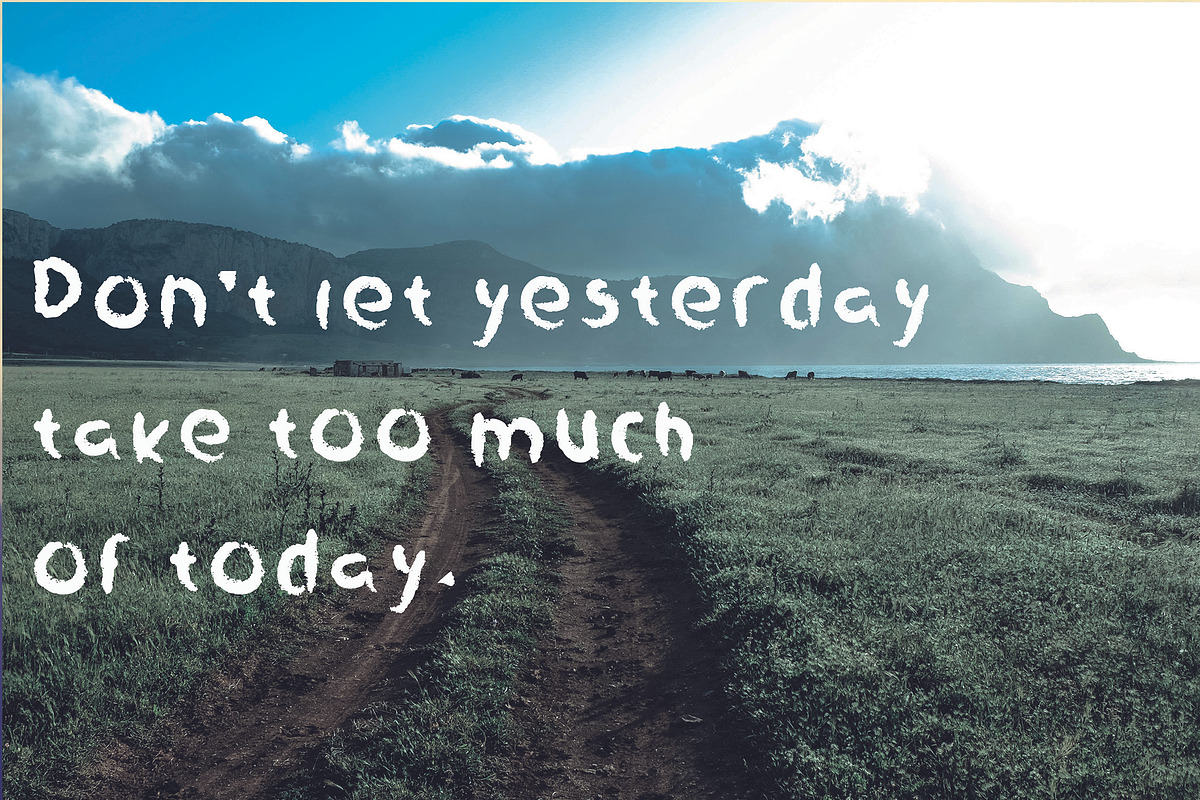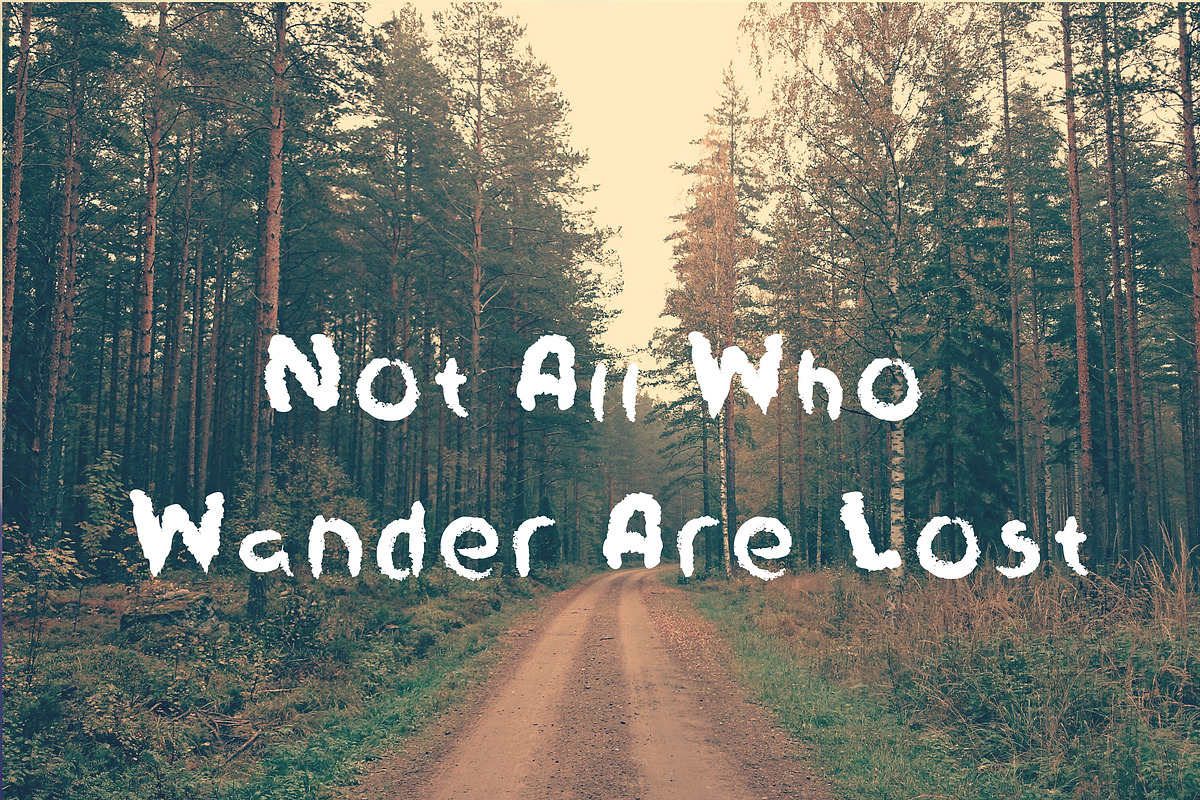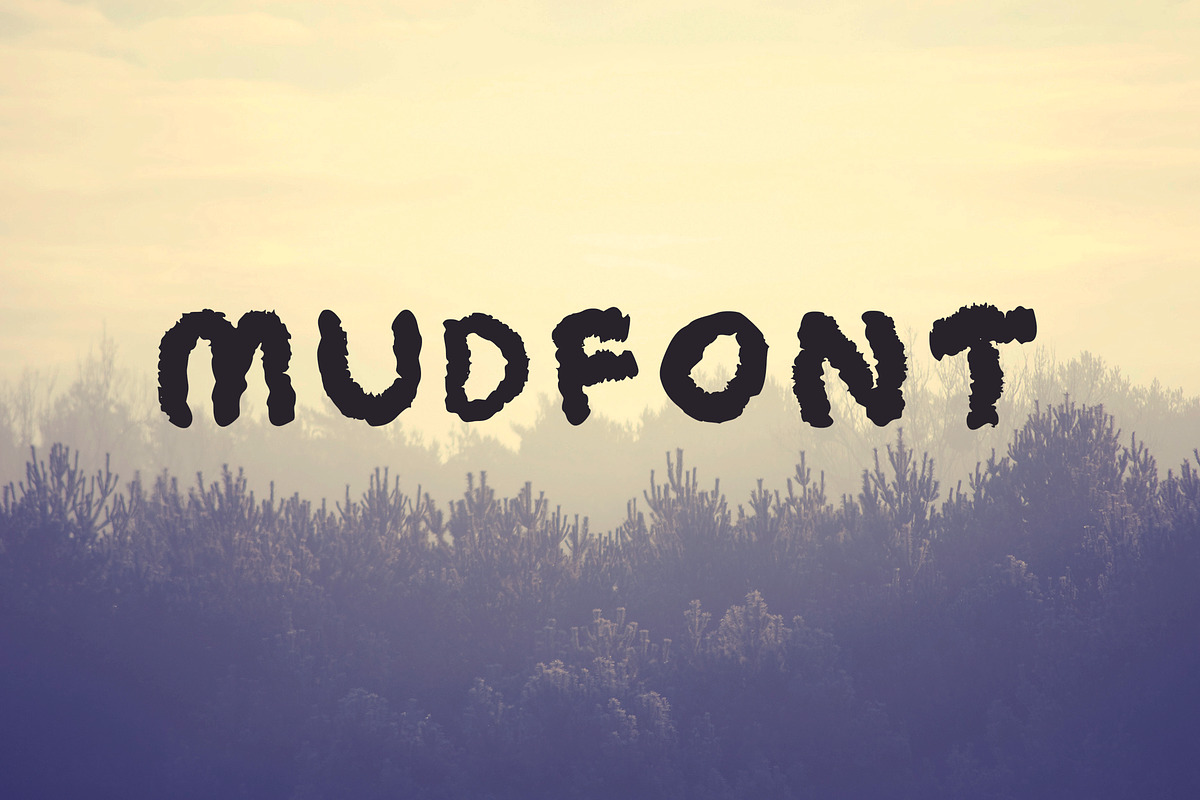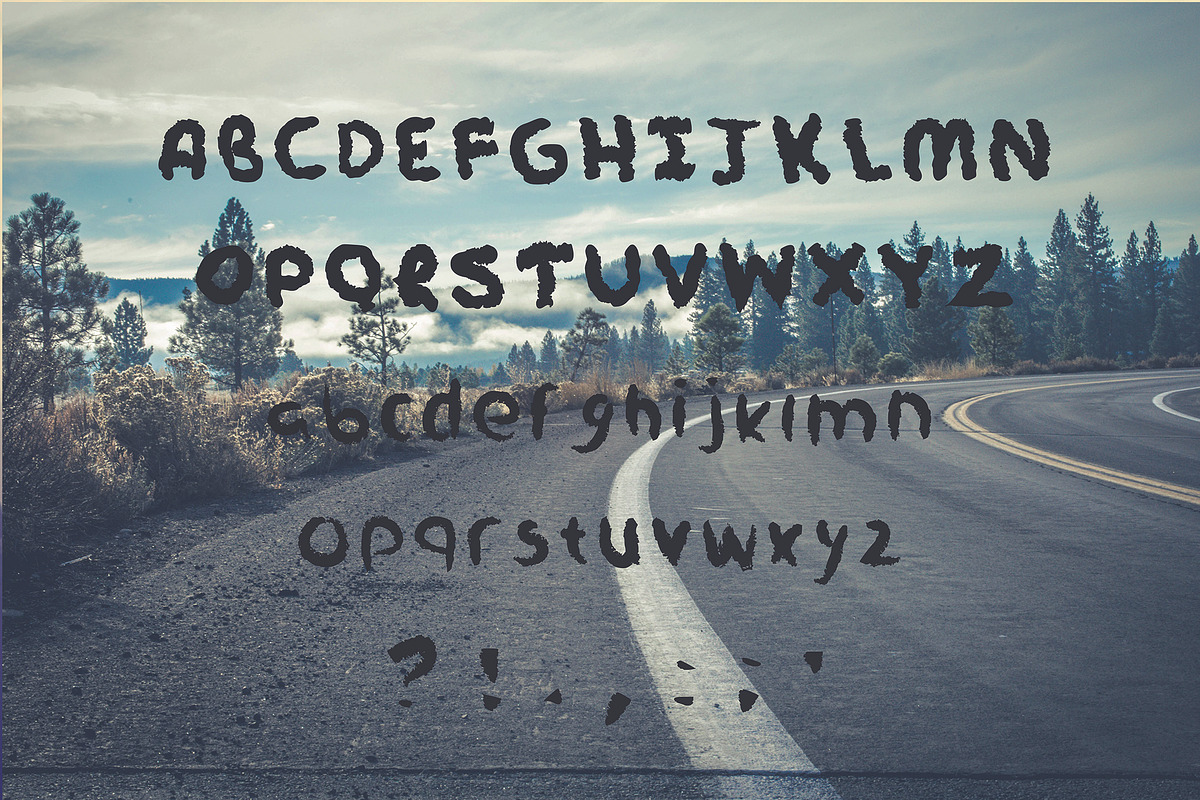
MudFont
MUDFONT
You can use this sketchy messy font for posters, greeting cards, business cards, logos, books, clothing and more!
English Lowercase + English Uppercase + Standard Symbols